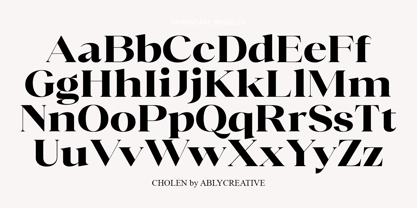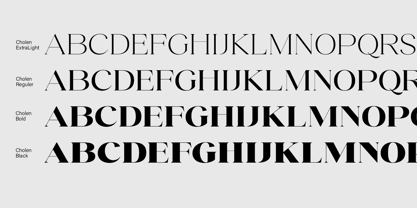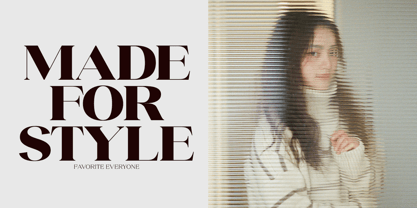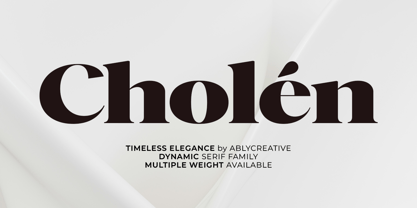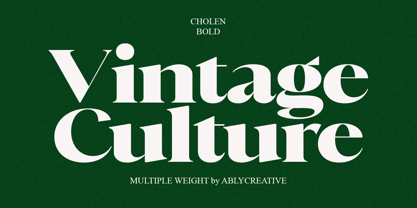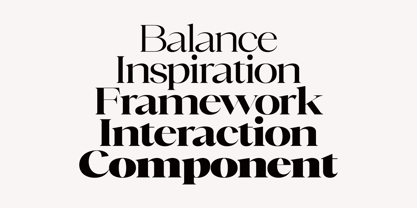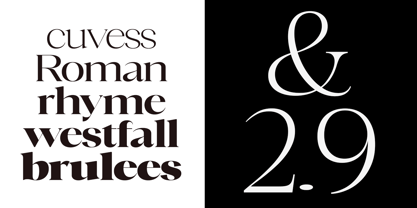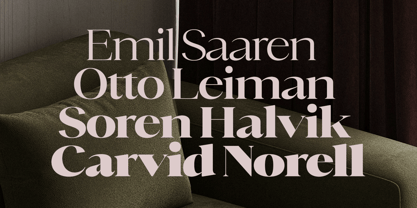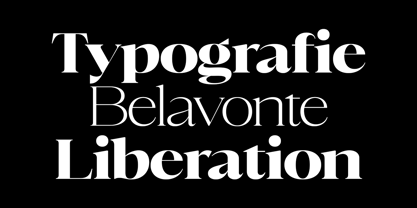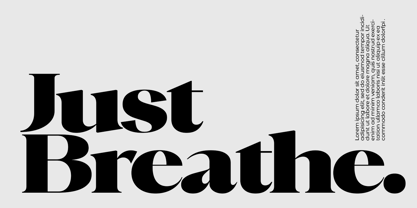
Cholen
by Ably Creative
The Cholen Font Family was designed by Amrullah Medan, Amrullah and published by Ably Creative. Cholen contains 9 styles. More about this family
Cholen is a serif typeface crafted with elegance and modern classic charm. Designed to express grace, professionalism, and exclusivity—Cholen thrives across both digital and print media promotions. Every curve and stroke whispers sophistication, making it the ideal choice for brands that aim to stand out with timeless elegance.
On websites, Cholen creates a refined atmosphere that immediately captivates. Headlines appear confident, while body text remains effortlessly readable. In print—be it brochures, formal invitations, or high-end catalogs—Cholen adds that finishing touch that says, “This is not your ordinary design.”
But Cholen is more than just form—it's about impression. It brings brand stories to life through type with soul. Loved by designers, luxury labels, and creative editors, Cholen isn’t just letters—it’s a part of the visual experience that lingers.
If you're looking for a typeface that elevates your visual identity to the next level, Cholen is your perfect match. It doesn’t just beautify—it empowers your message with timeless aesthetics.
Designers: Amrullah Medan, Amrullah
Foundry: Ably Creative